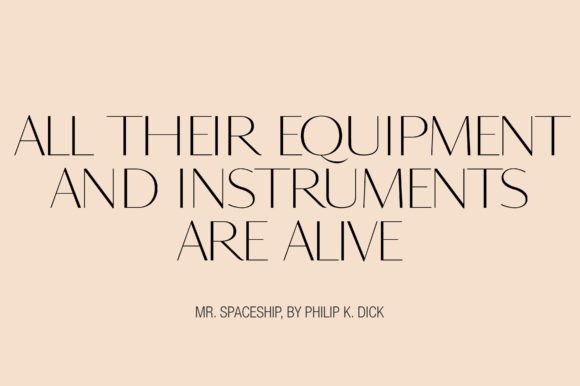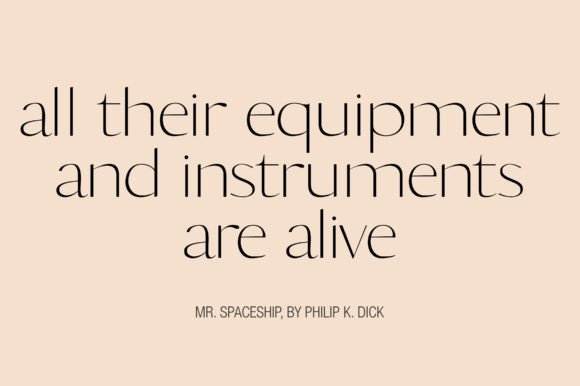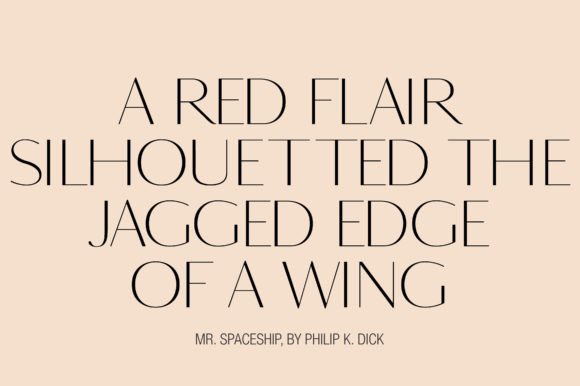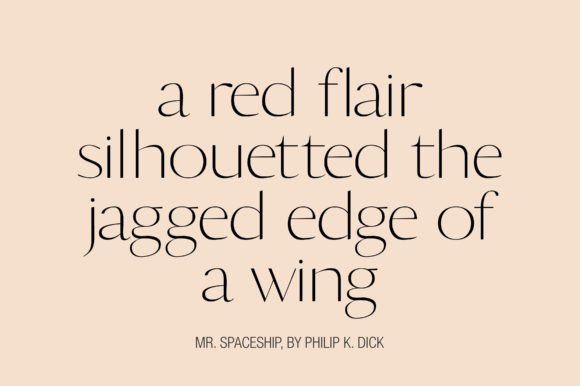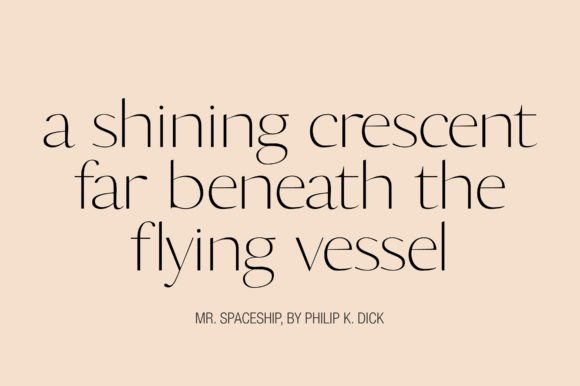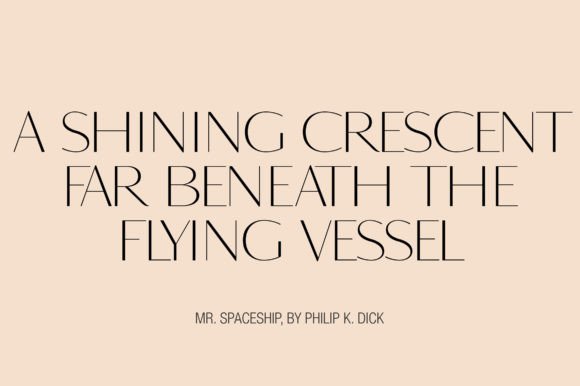
Introducing Bloom: The Epitome of Minimalist Elegance in Typography
I’ll never forget the design moment that led me to discover Bloom. I was working on a sleek corporate branding project, and my client requested a font that exuded modern sophistication. I scoured the internet, tried out countless typefaces, but nothing seemed quite right. That was until I stumbled upon Bloom – a game-changing sans serif font that instantly elevated my design.
The Design Story Behind Bloom
Bloom was crafted with meticulous attention to detail, carefully balancing form and function. Its designer aimed to create a typeface that captures the essence of contemporary elegance, with clean lines, refined letterforms, and a harmonious balance of curves and angles. The result is a font that effortlessly enhances any project, from corporate logos to eye-catching headlines.
My Honest Review of Bloom
Here’s what I love about Bloom:
- ✨ Timeless charm: Bloom’s simplicity exudes a classic elegance that never goes out of style.
- ✅ Optimal legibility: The airy spacing between characters ensures that your message is effortlessly conveyed to your audience.
- 💡 Versatility: Bloom seamlessly adapts to various contexts, maintaining its distinct personality.
And here are some minor quirks to consider:
- 🤔 Limited contrast: Bloom’s clean lines can make it challenging to create visual hierarchy in certain designs.
- ⚠️ Glyph limitations: While Bloom has an impressive character set, it may not include every special character or glyph you need.
| Font Name | Bloom Font |
| Author | Minimalistartstudio |
| What makes Bloom a versatile font? | Bloom’s clean design and balanced letterforms allow it to adapt seamlessly to various contexts, from corporate branding to creative projects. |
| Can I use Bloom for body text? | While Bloom is optimized for headlines and display text, its legibility makes it suitable for short blocks of body text. |
| Does Bloom support OpenType features? | Yes, Bloom supports a range of OpenType features, including stylistic alternates and glyphs. |
| Is Bloom suitable for branding and logos? | Absolutely! Bloom’s modern design and elegant personality make it an excellent choice for corporate branding and logos. |